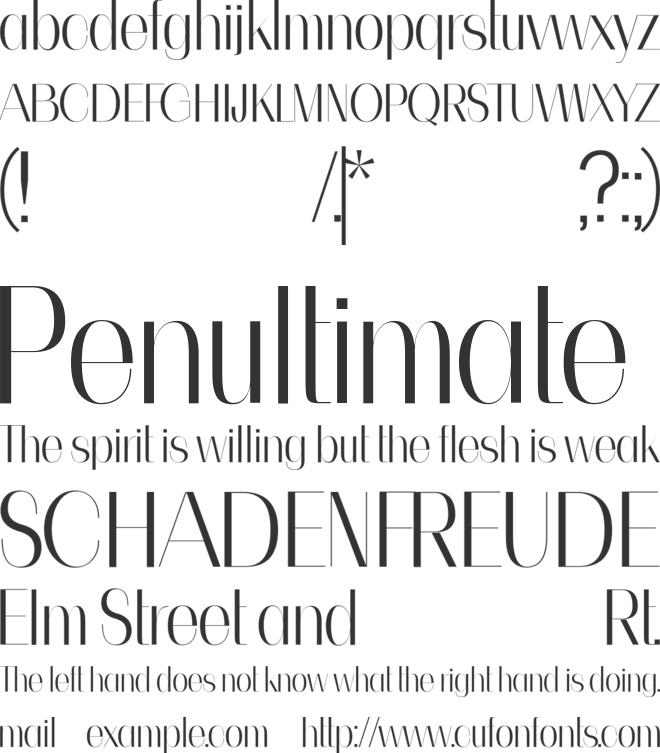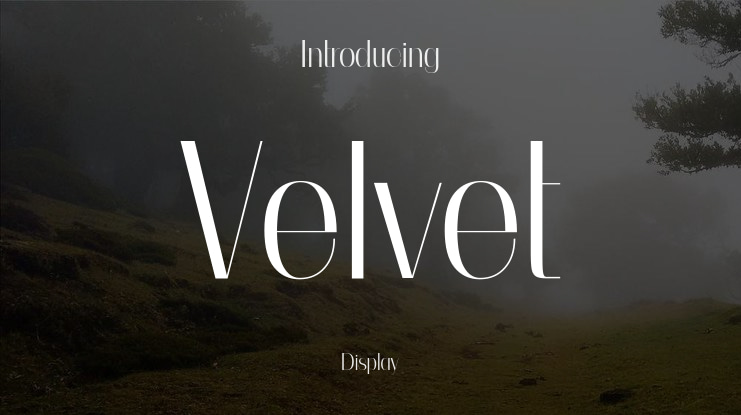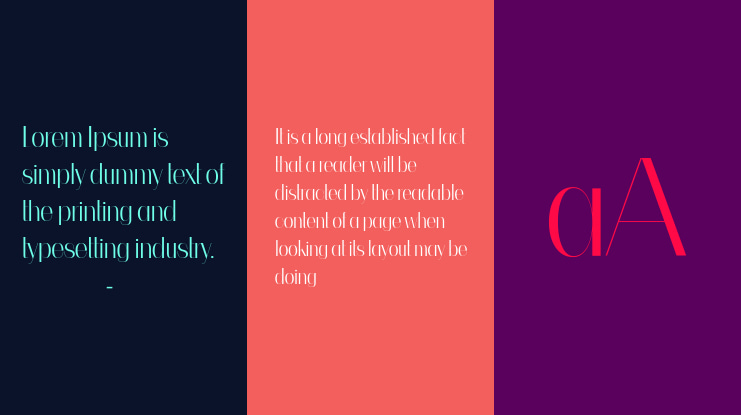
Velvet Font
🎨 Font Name: VELVET by Minimalist Art Studio
🎨 Font Description: Velvet is a delicate sans serif with multilingual support and graceful proportions, ideal for lifestyle branding, editorial design, and minimalist packaging.
βœ” Complete Latin set + multilingual diacritics
βœ” Alternates, stylistic sets & ligatures
βœ” Numbers, small caps, and extended punctuation
βœ” Bonus italics and family styles